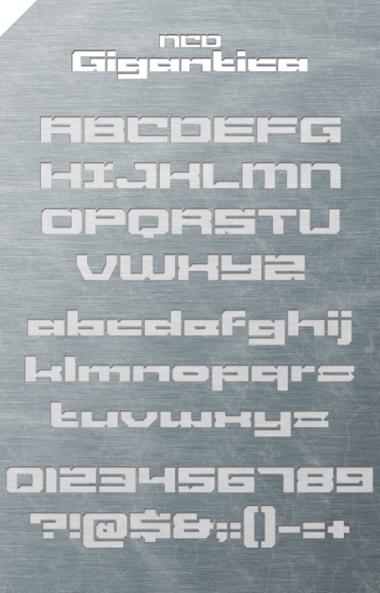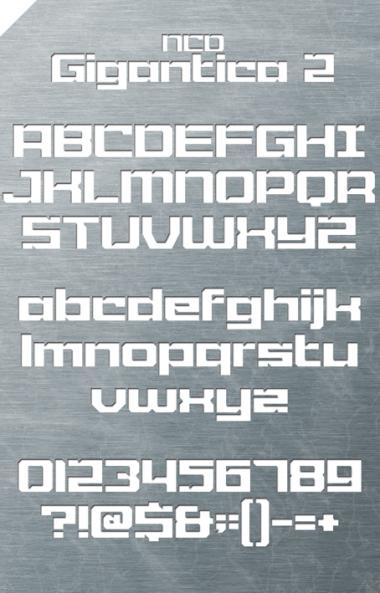
Based on Blokinjo by Kolarek.
Redrew the whole font from scratch and slightly expanded it.
Changed B,C,D,F,G,H,I,J,K,L,M,N,O,P,Q,R,S,T,U,V,W,X,Y,Z
c,e,f,j,k,m,o,q,r,s,t,v,w,y,z
0,1,2,3,4,5,6,7,8,9
Added
?!@£$&()_+=-{}[]:;"',.?
Really nice. I'm not sure about the s and the z, but I'm not sure what else you could do with them either.
Secondly, I agree totally.
There's some other variations of 's' at the end of the preview screen. I even thought to have it dropping below the line. I said the same things to Kolarek about his fontstruct.
Here is Gigantica 2. This doesn't look as dramatic, but resolves the 's' & 'z' problem.
You're a quick one, djnippa. I like this expanded. I think you'd do well to drop the e, s, and z below the line at diagonal slants.
I'm not 100% sure what you mean. I've added the alternatives I did as follows:
%= s (large below line)
~= s (below line with diagonal)
|= s (small alternative on line)
\= s (45 degree kicker as Geneus1)
`= s (small alternative on line)
*= e (shallow diagonal kicker)
/= e (Shallow stubbed angle below line)
= z (Diagonal version)
The alts are good, but fully populating the descender grid space seems to add too much weight to the glyphs. I was thinking of something more like this:
Nice. I've added the alternatives you suggested:
'%'= s (large below line)
'~'= s (below line with diagonal)
'|'= s (small alternative on line)
'\'= s (45 degree kicker as Geneus1)
'`'= s (small alternative on line)
'}'= s (45 degree kicker stubbed
'*'= e (shallow diagonal kicker)
'/'= e (Shallow stubbed angle below line)
'Arrow Right' = e (geneus1 Version)
'Arrow Left'= z (Diagonal version)
'{'= z (Geneus1 version)